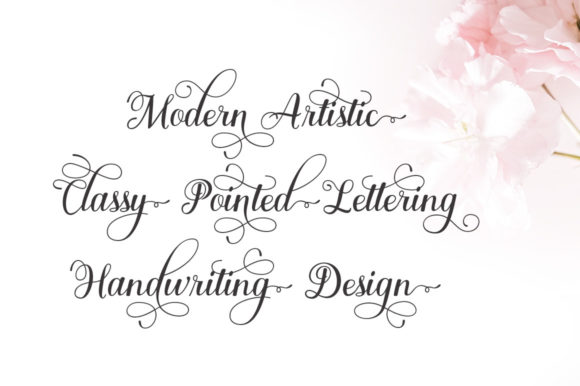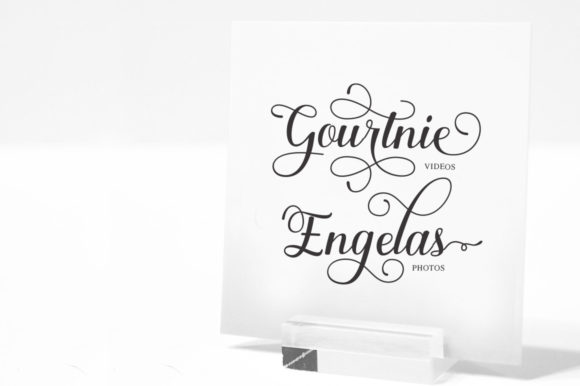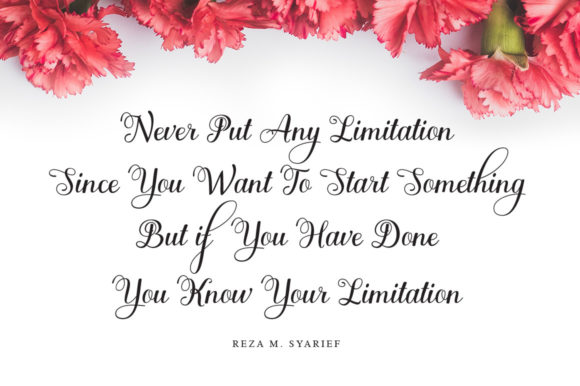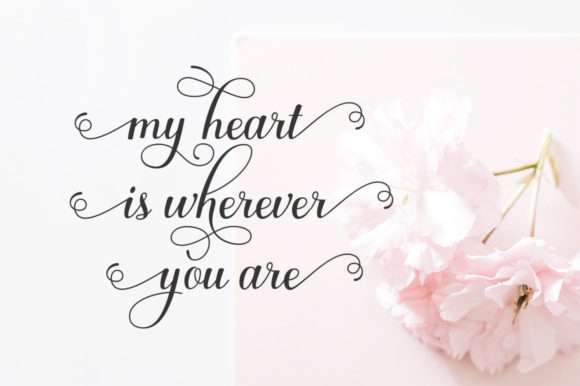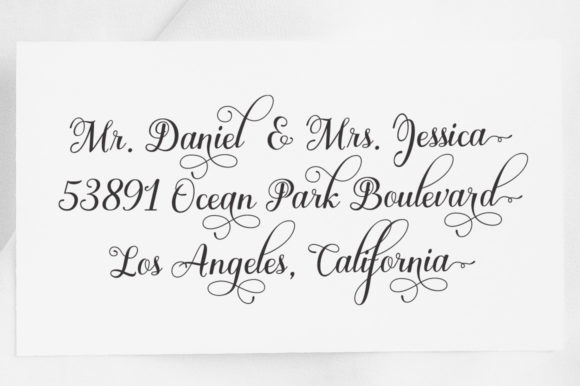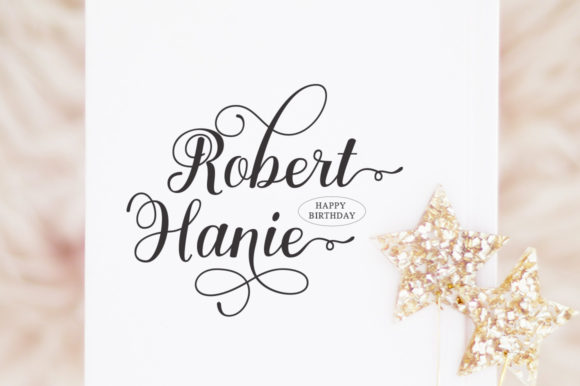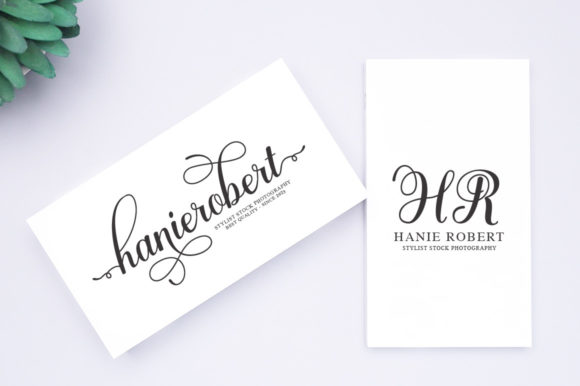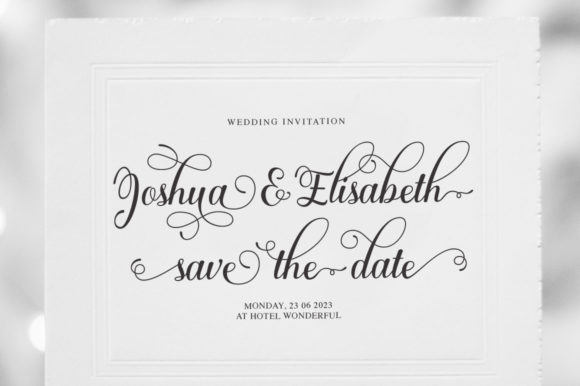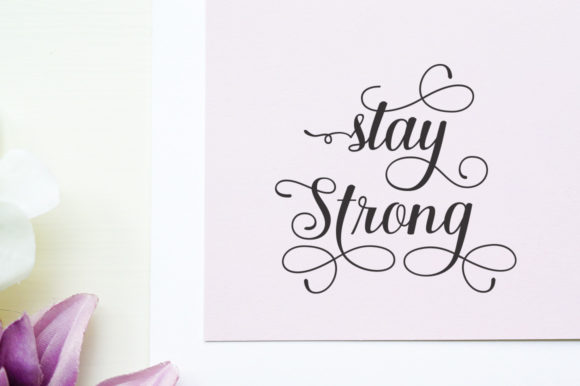
Enkeyla Script Font
About Enkeyla Script Font
Enkeyla Script is an enchanting calligraphy font. This versatile script font has a wide spectrum of applications ranging from greeting cards to headlines. Enkeyla Script is PUA encoded which means you can access all of the glyphs and swashes with ease!